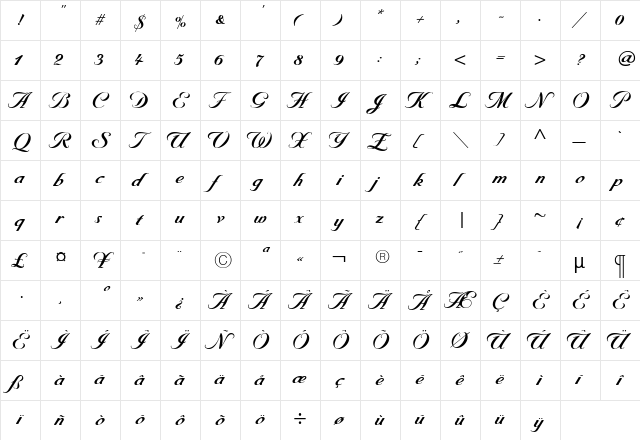
Byron Bold Regular
Design Context for Byron Bold Typeface
Byron Bold is a composed and adaptable typeface that performs quietly and consistently across a wide range of design contexts. The heavy weight commands attention and anchors typographic hierarchies.